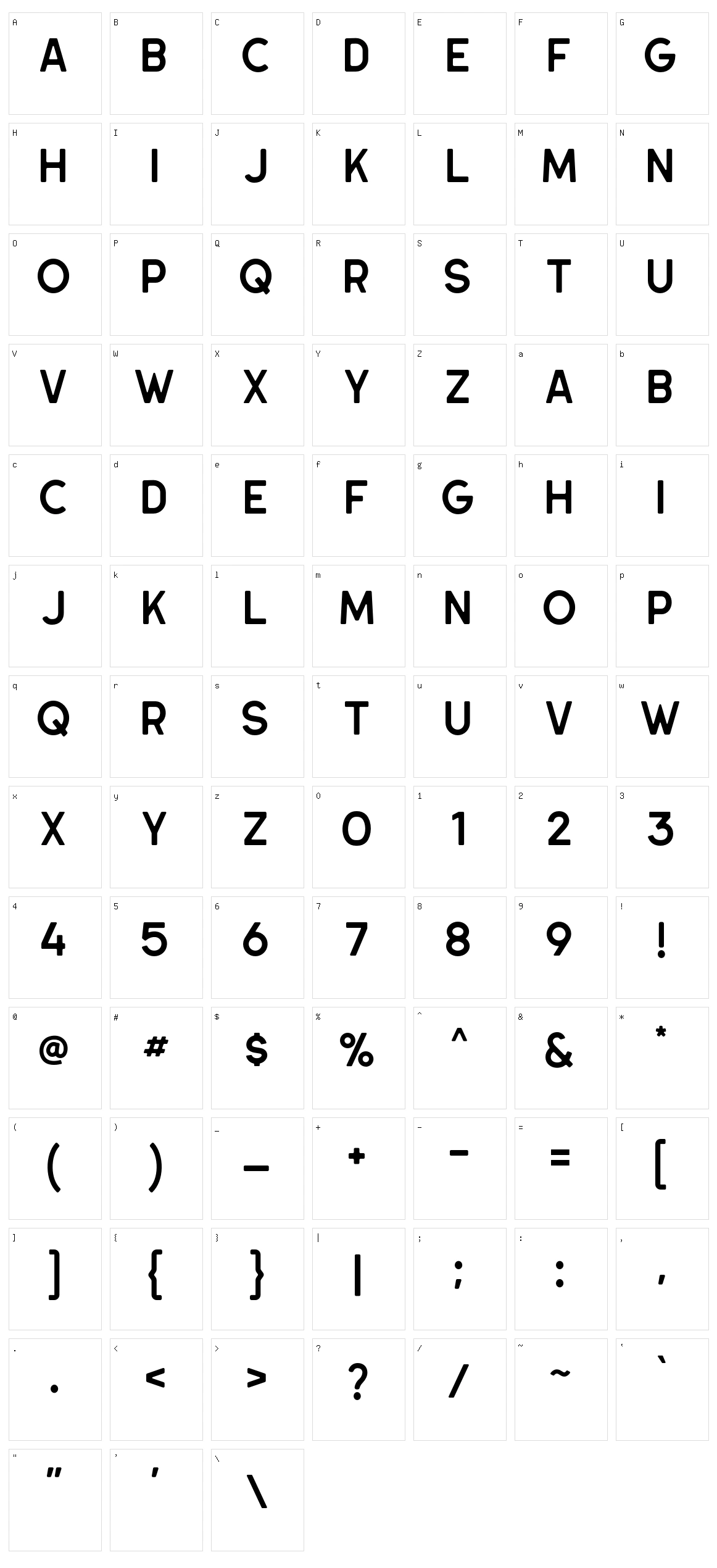
The free font Hillstown Sans Clean is carefully designed by Letterhend Studio, showcasing a thoughtful balance of creativity and usability and falls under the Sans serif font style. When you download the ZIP file, it contains only 5005.07 KB of font files, making it lightweight and quick to download. Please review the license details below to understand permitted usage and distribution rights. If license information is not available, we recommend using this font for personal projects only or contacting the author directly for commercial usage permissions.